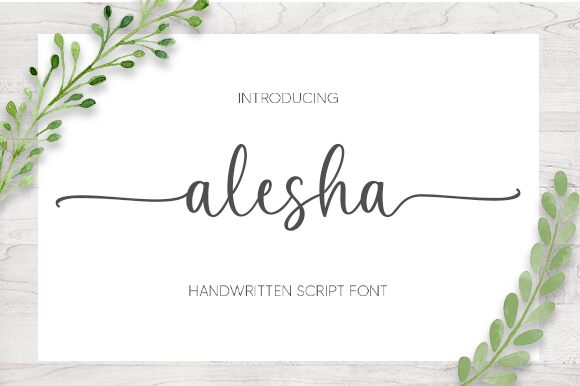
Alesha
Alesha, designed by Aldi Raya Pradipta, is a beautiful handwritten script font. Its versatile style makes it suitable for a variety of projects such as wedding invitations, greeting cards, logos and branding.